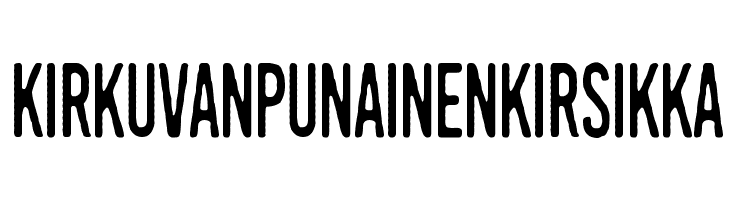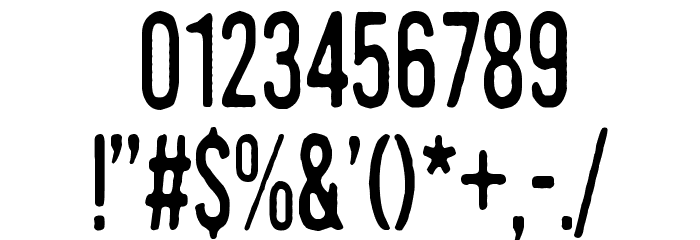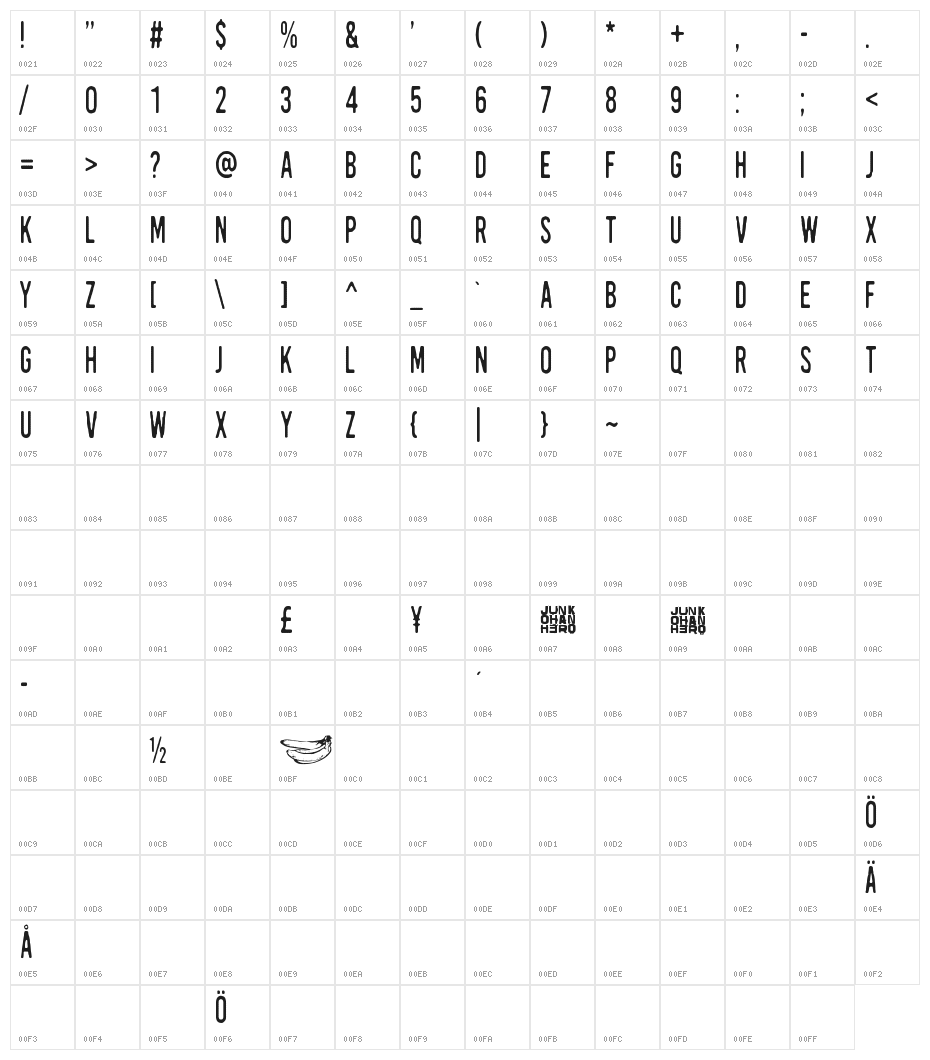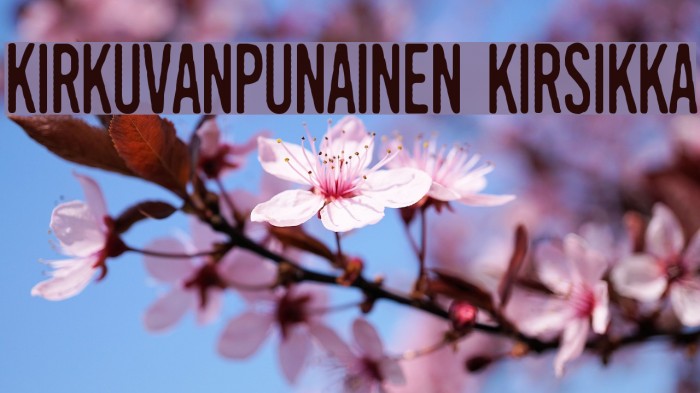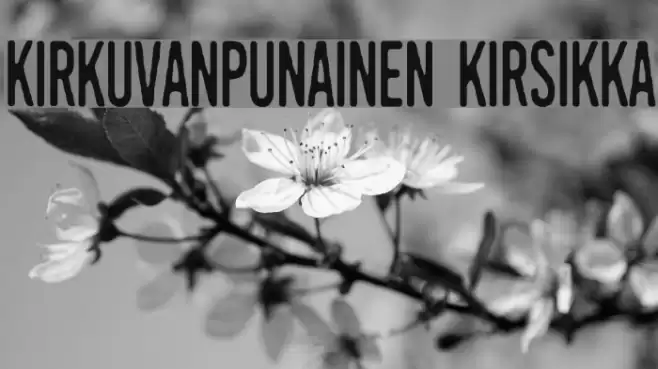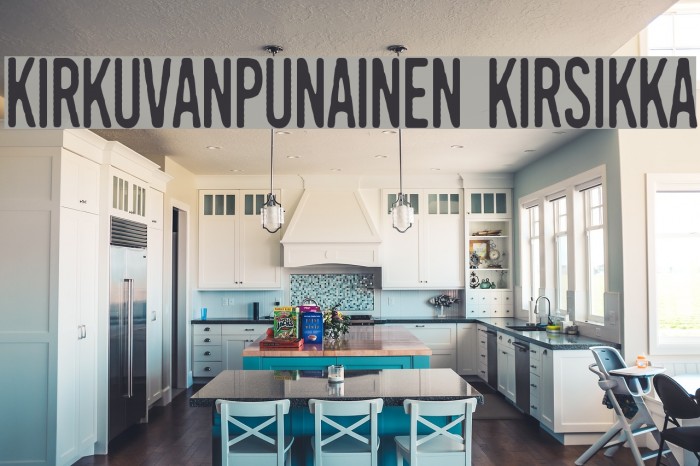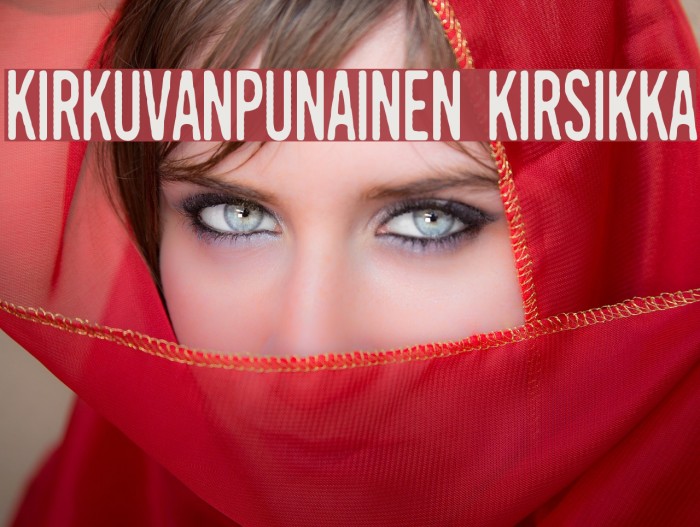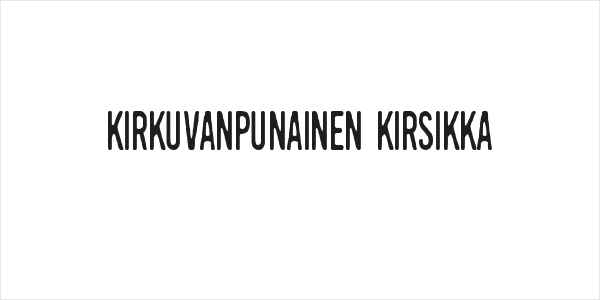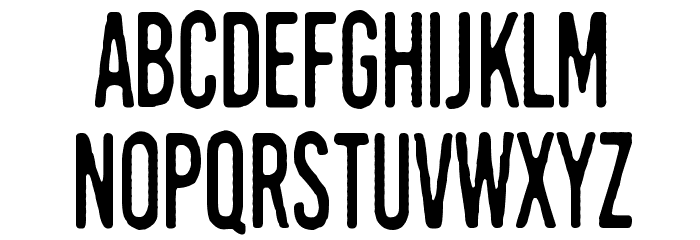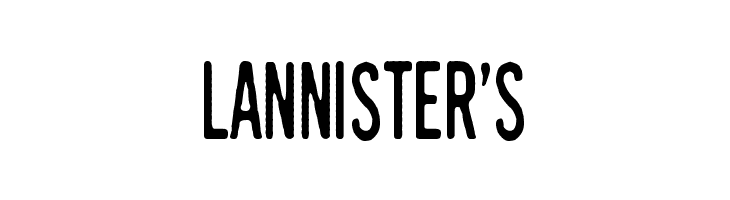
Kirkuvanpunainen kirsikka Font
Kirkuvanpunainen kirsikka Description
This font features a bold, condensed style with a strong presence. The characters are tall and narrow, giving it a modern and impactful look. The uppercase and lowercase letters maintain a consistent height, while the numbers and special characters are designed to complement the overall aesthetic. The strokes are even, with a medium contrast that adds to its readability. The font's clean lines and structured form make it suitable for various design applications, offering a contemporary feel that is both versatile and eye-catching.
| Proposed Projects | Ideal for headlines, posters, branding, and advertising materials where a strong visual impact is needed. |